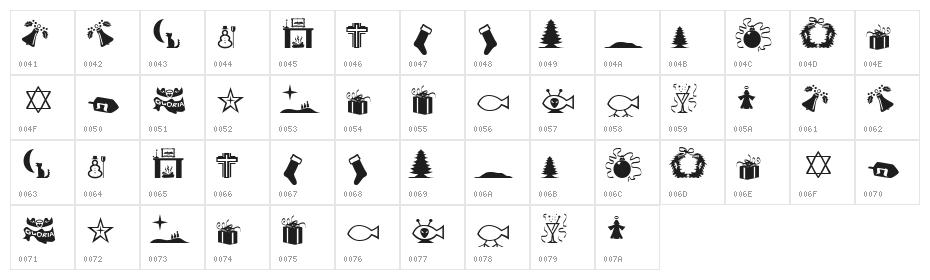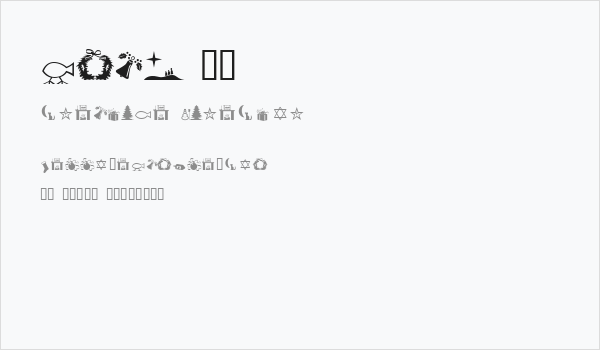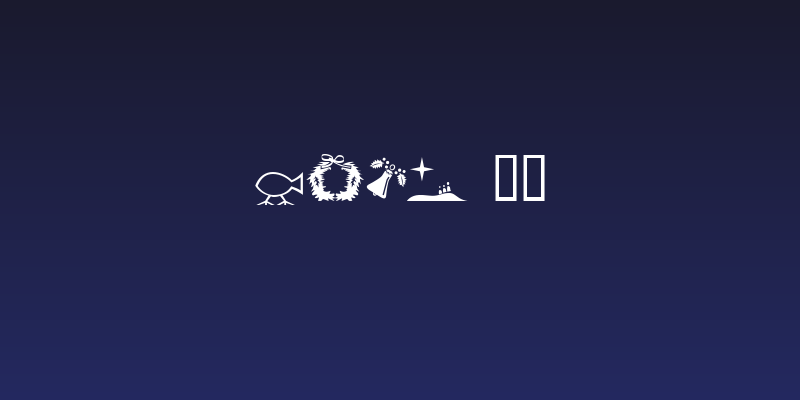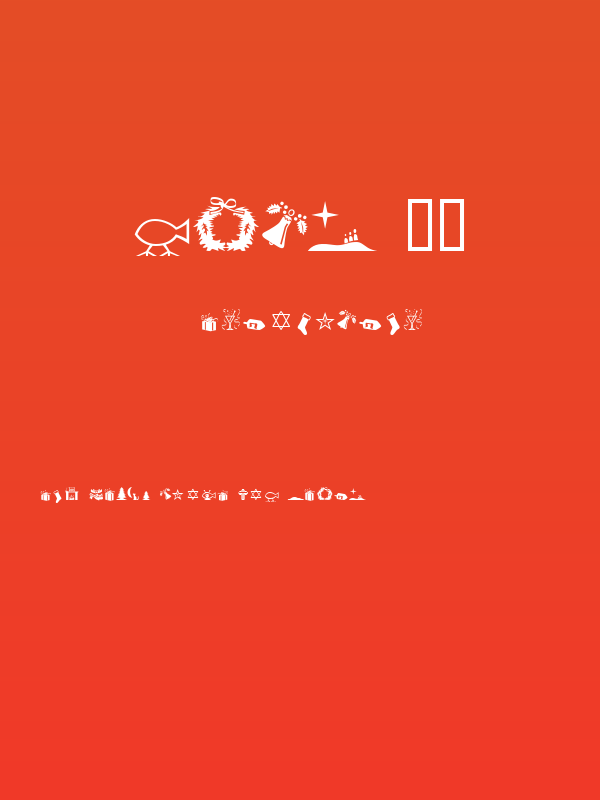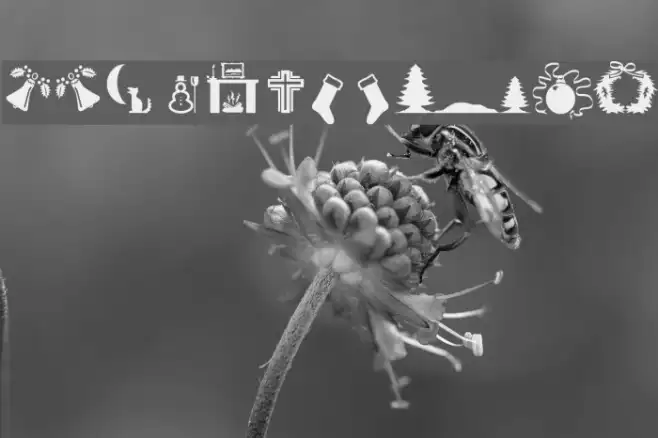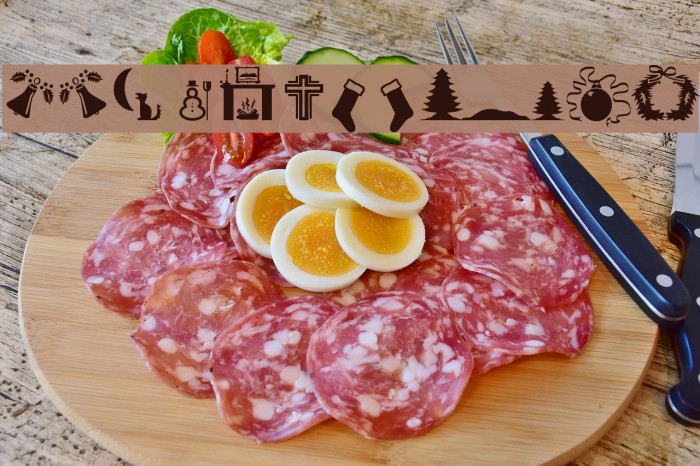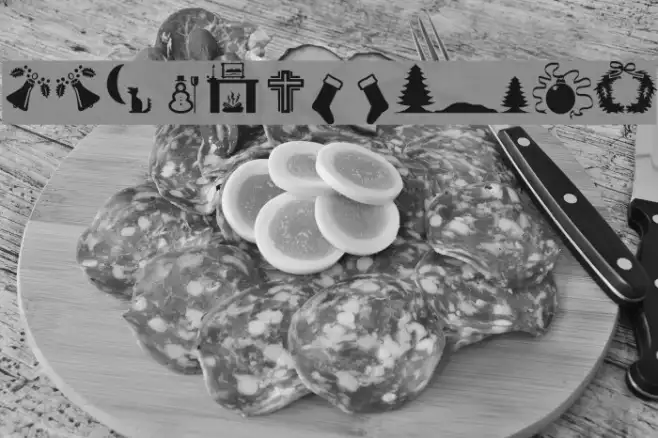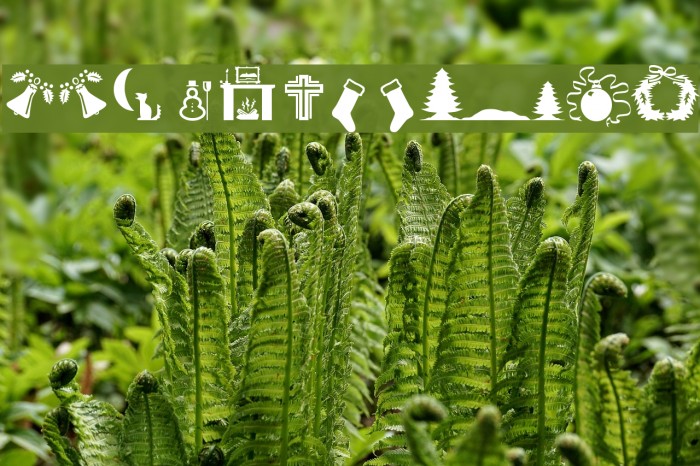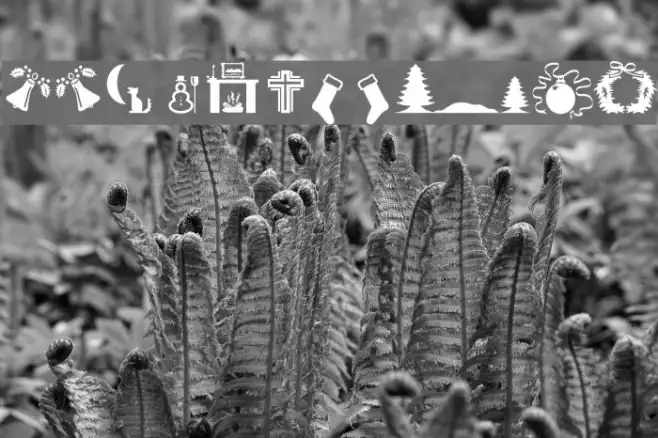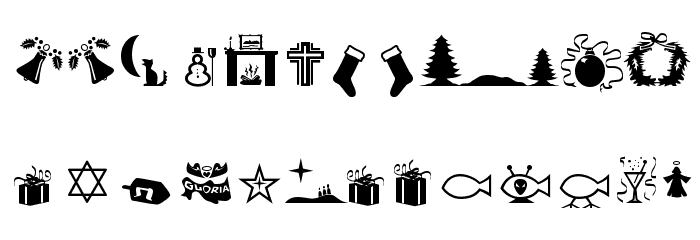
Xmas 97 Font
Xmas 97 Description
This decorative font is a collection of festive and holiday-themed symbols, featuring a variety of Christmas and winter motifs. The characters include bells, stockings, Christmas trees, snowmen, and other seasonal icons. Each symbol is intricately designed to capture the essence of holiday cheer, making it perfect for festive occasions. The style is playful and whimsical, with bold outlines that ensure each icon stands out clearly. The font is ideal for adding a touch of holiday spirit to any project, with a consistent design that maintains a cohesive look across all characters.
| Use Case | Logos, Headlines, Decorative elements |
| Proposed Projects | Ideal for holiday cards, festive invitations, seasonal decorations, and Christmas-themed graphic designs. |